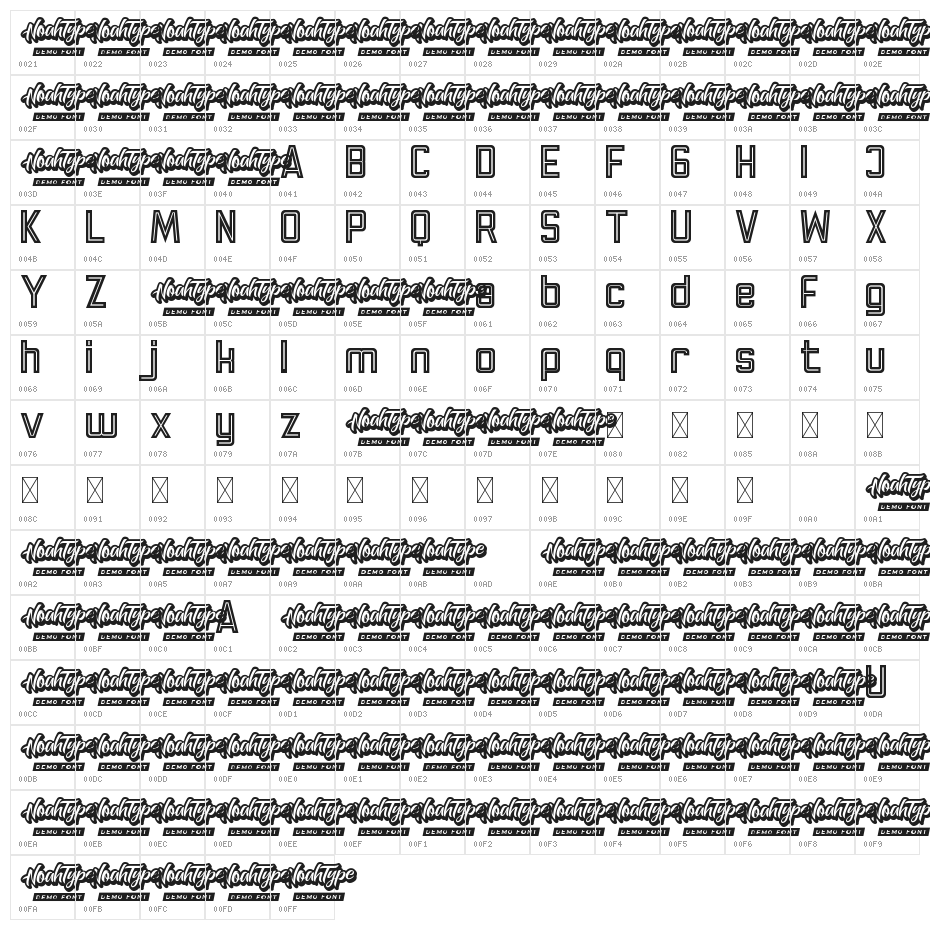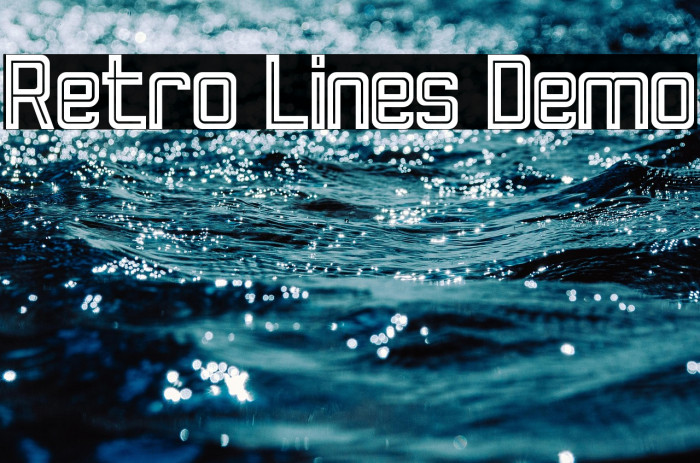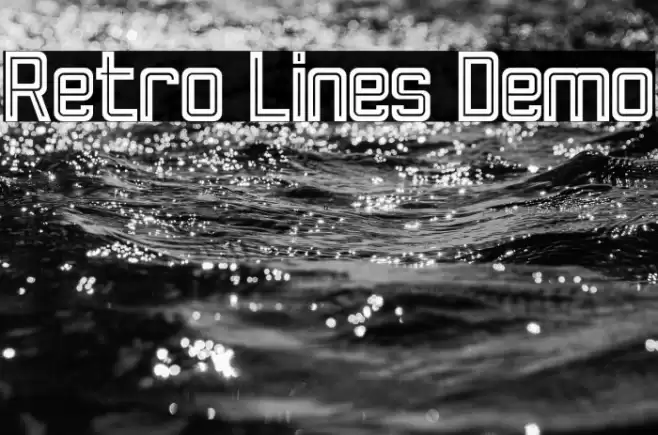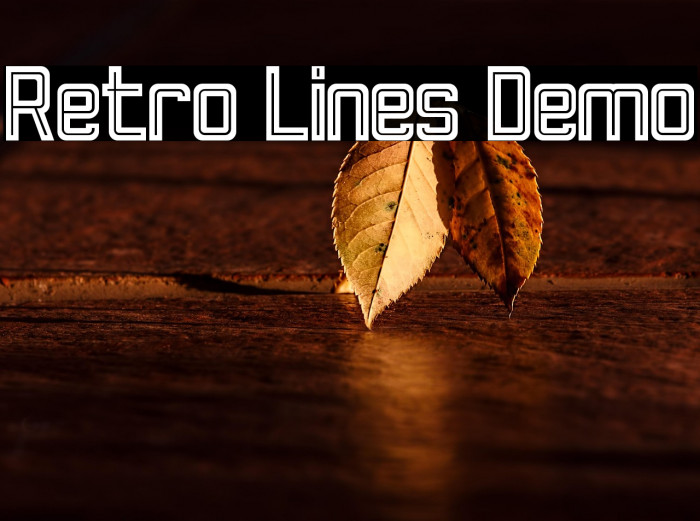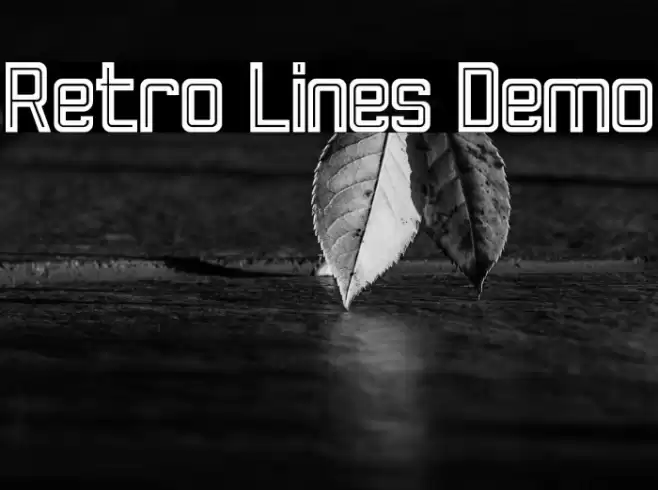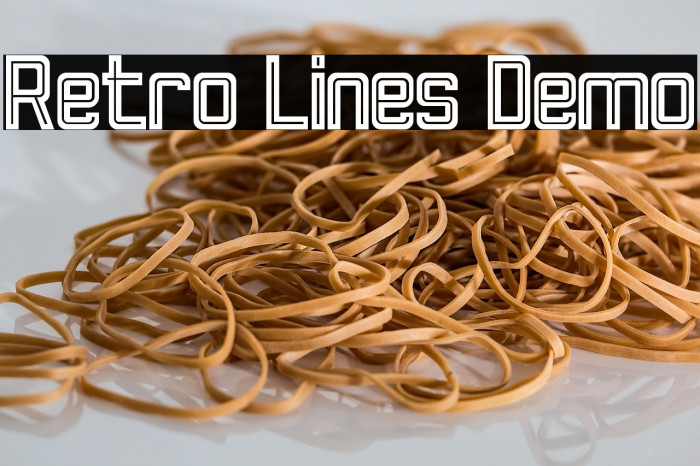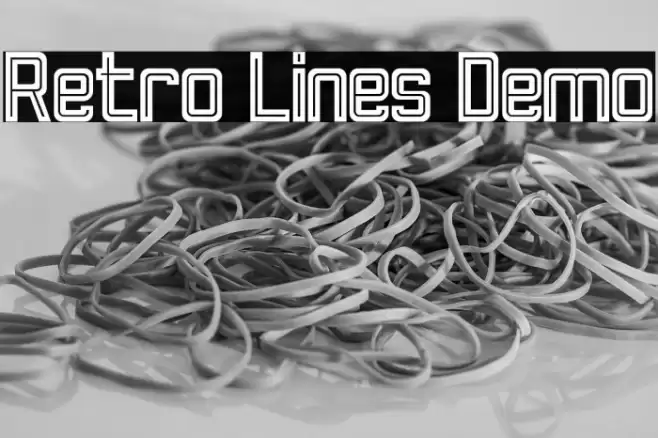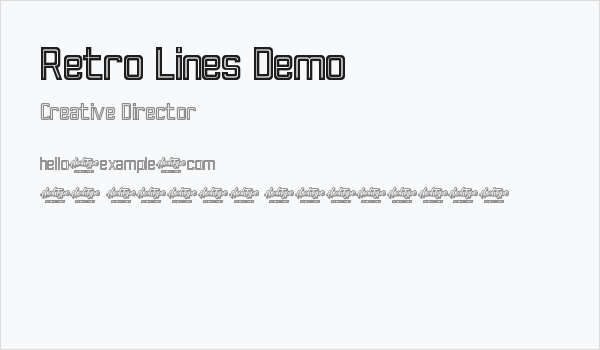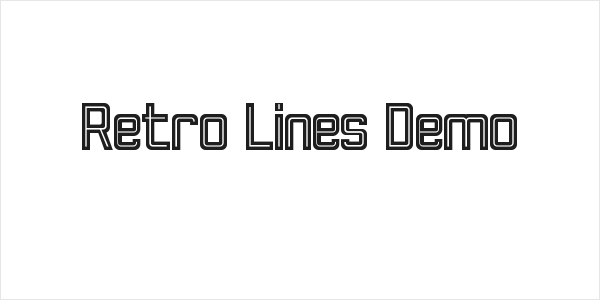
Retro Lines Demo Font
Retro Lines Demo Description
This font features a distinct retro aesthetic with a geometric, linear design. Each character is outlined with a double line, creating a sense of depth and dimension. The uppercase and lowercase letters maintain a consistent style, with sharp angles and clean lines that evoke a sense of nostalgia. The numerals and special characters are crafted with the same attention to detail, ensuring uniformity across the entire typeface. This font's unique style makes it ideal for projects that aim to capture a vintage or retro feel, while still maintaining a modern edge.
| Overall Style | Retro |
| Proposed Projects | Ideal for retro-themed posters, vintage branding, and nostalgic graphic designs. |